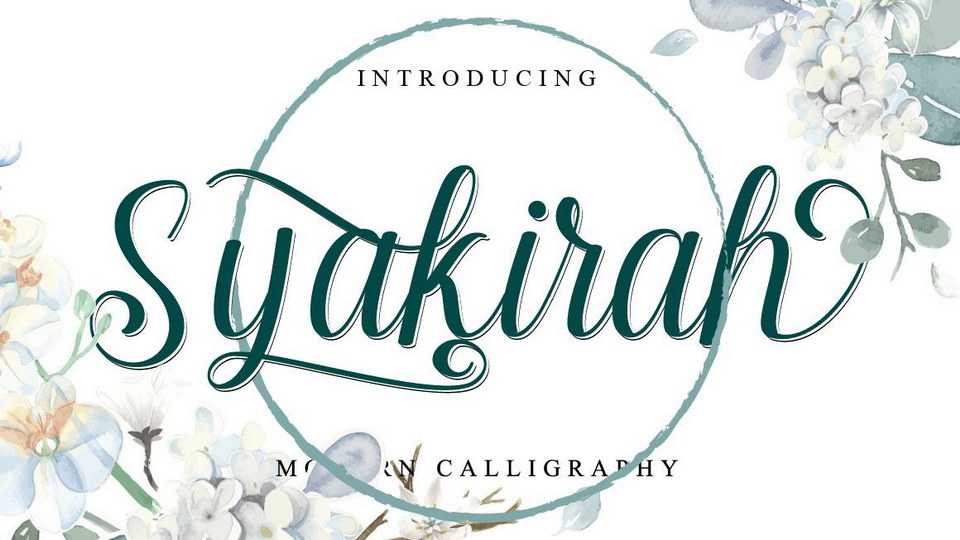
Download Syakirah font, a dazzling and flowing hand lettered script typeface. Syakirah is neatly crafted and highly detailed to design wedding invitations, cards, crafts and more.
Designer: Fiqi Febriyanto